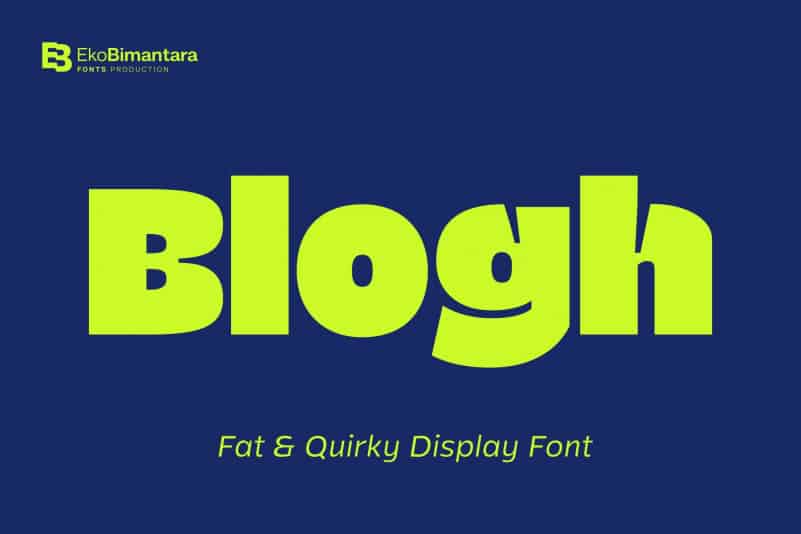
Blogh Font
Blogh Display Font is a bold modern sans serif titling font. A multi purpose display font with high impact. Blogh is fat and quirky display Typeface manufactured by ekobimantara. Its heavy weight and sturdy letterforms with characterized by extreme artificial inktrap, make it uniquely perfect for headlines and titles.